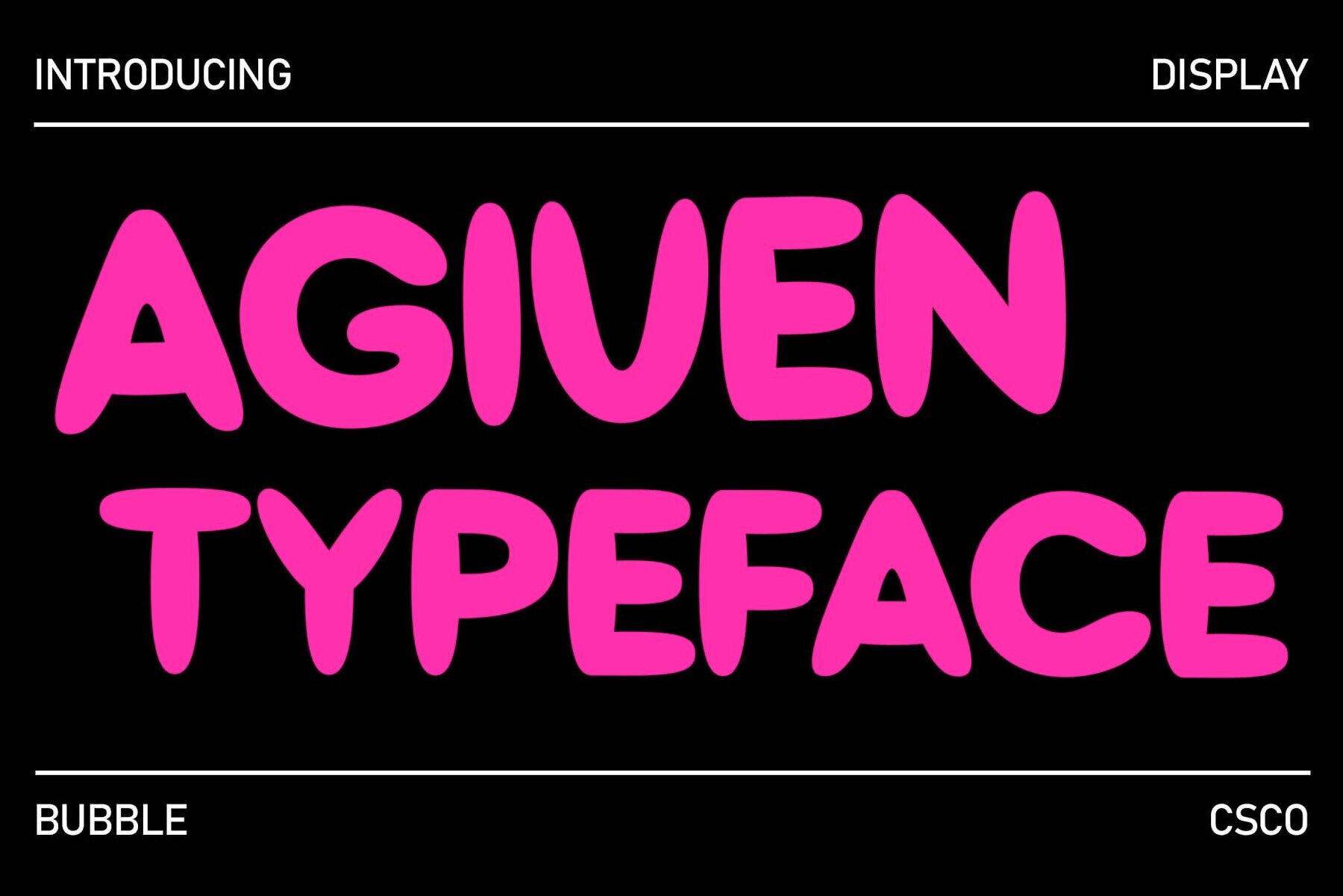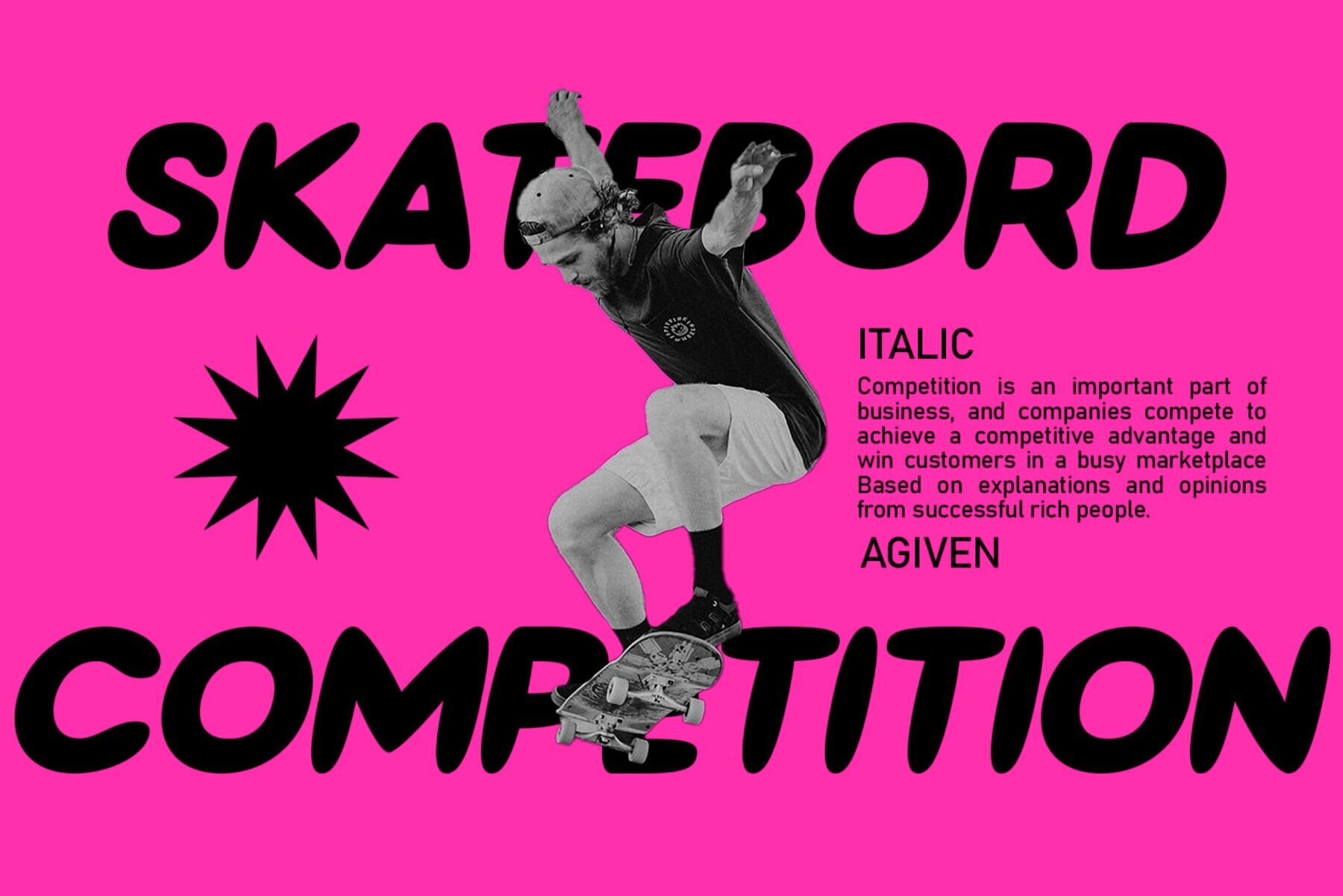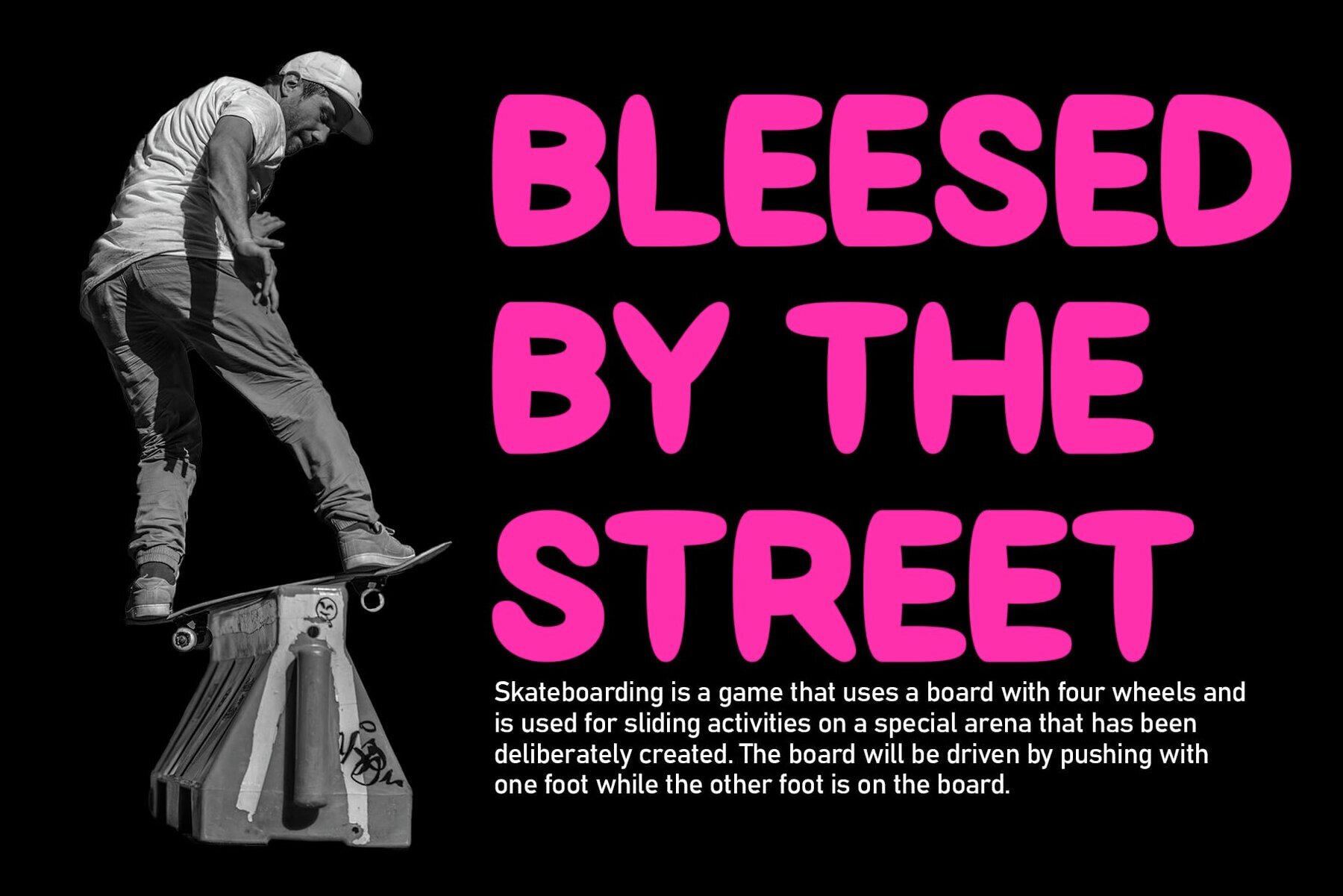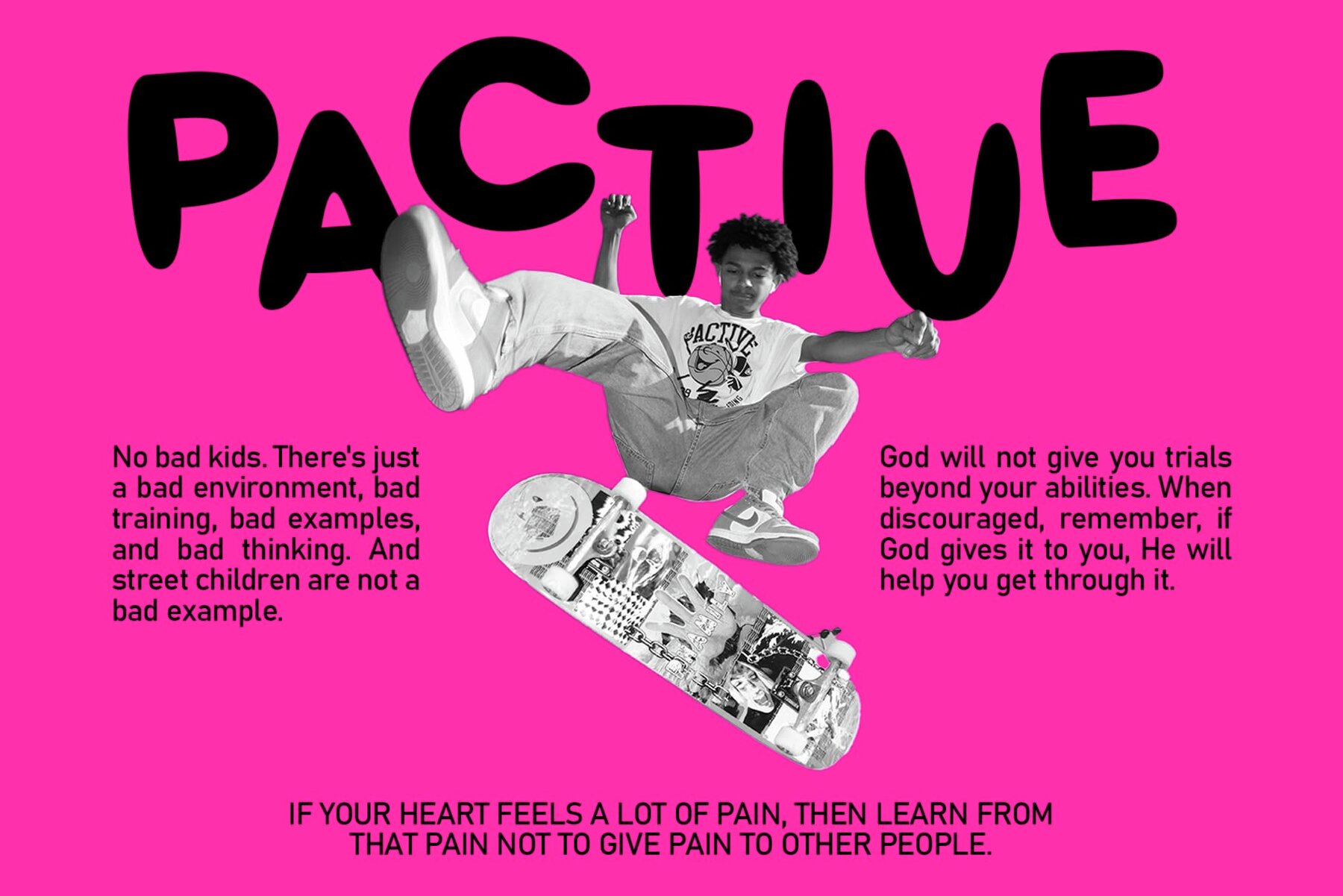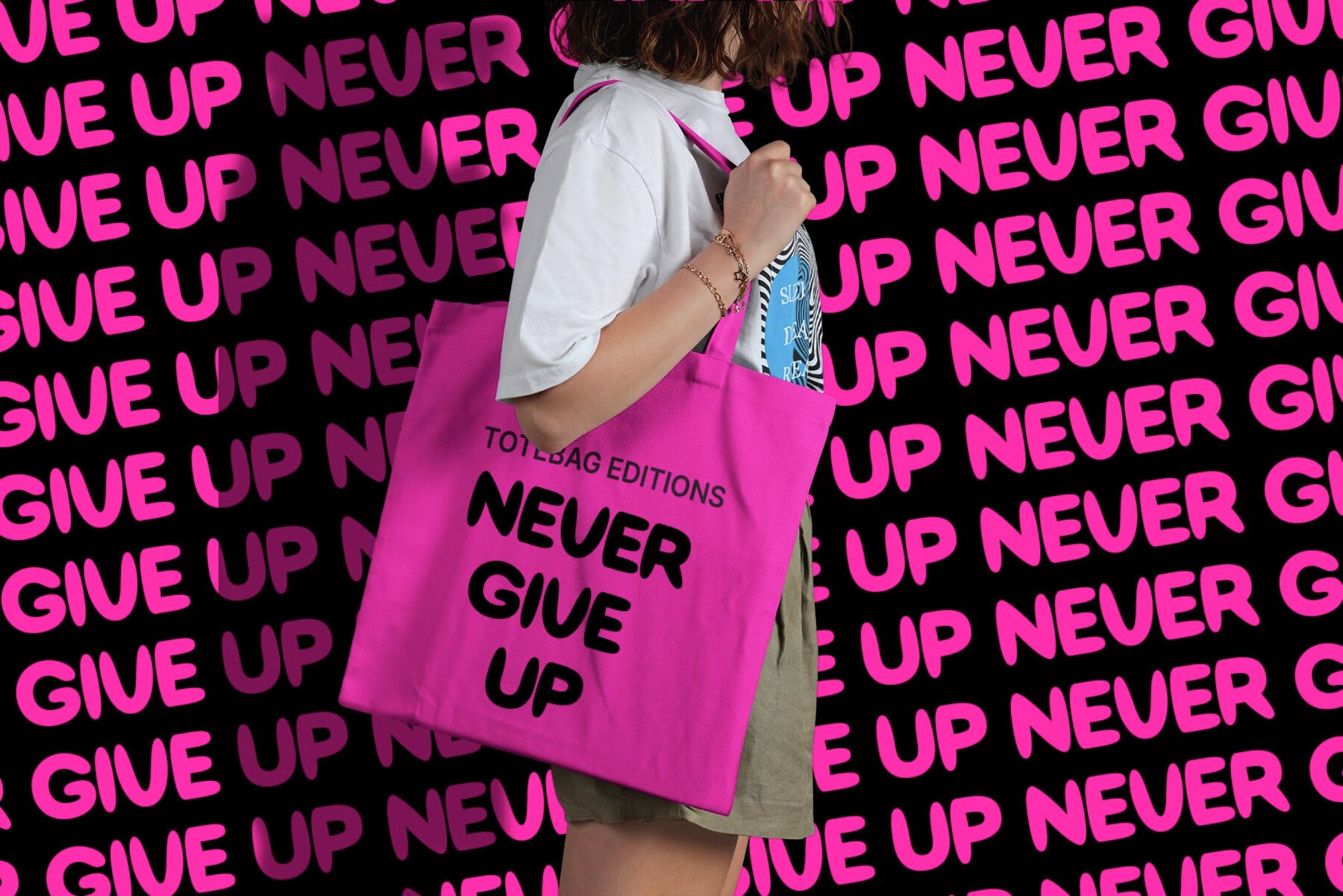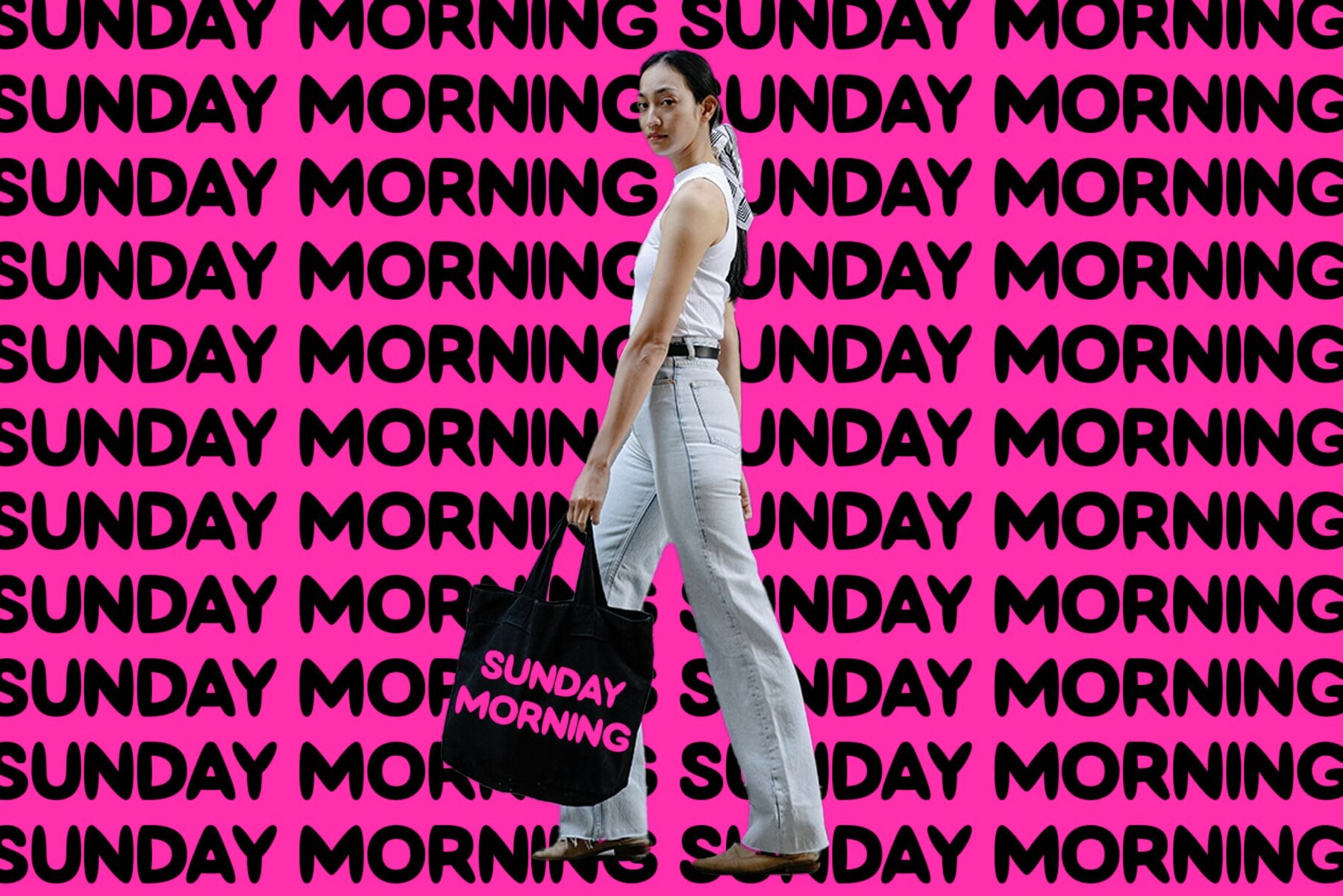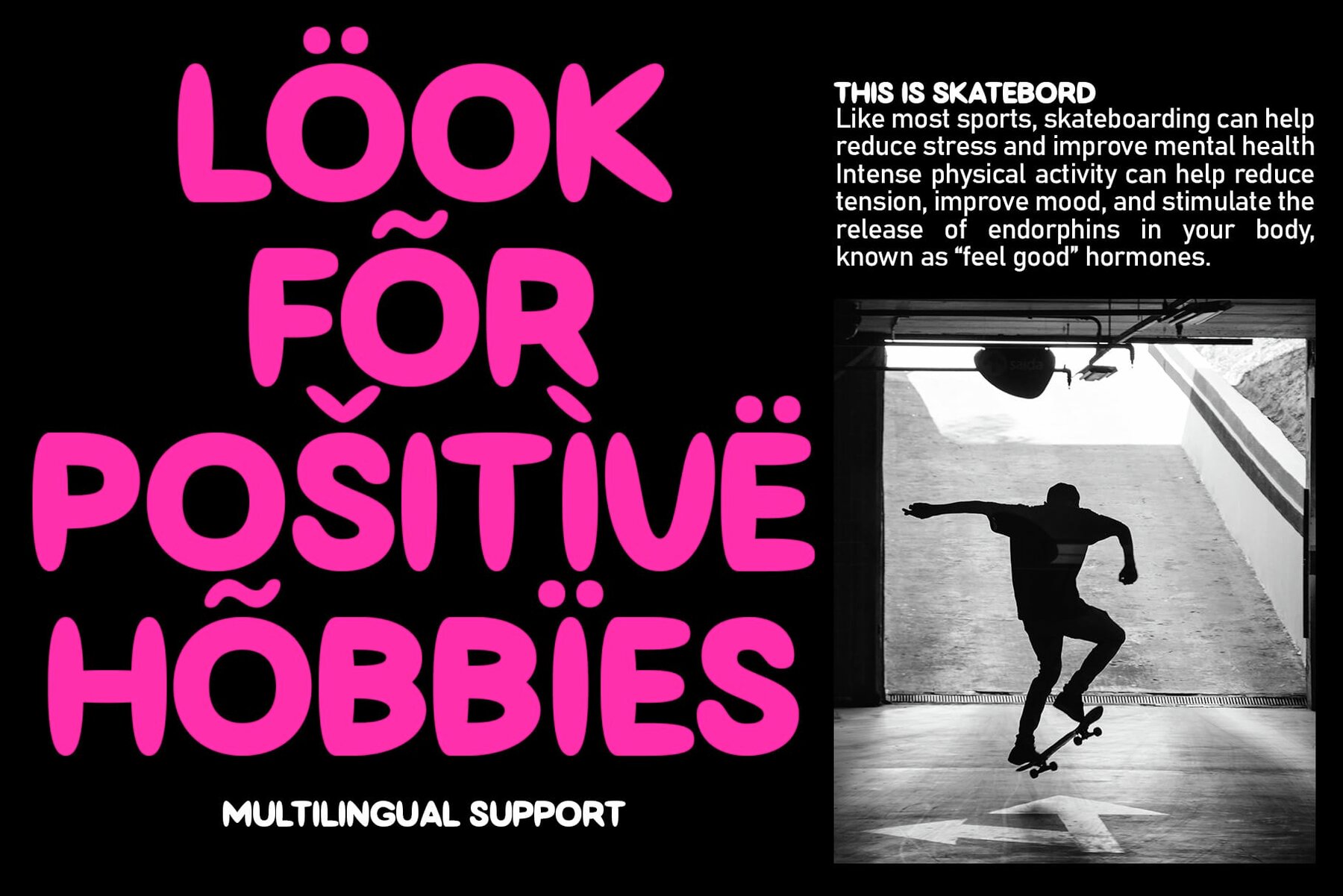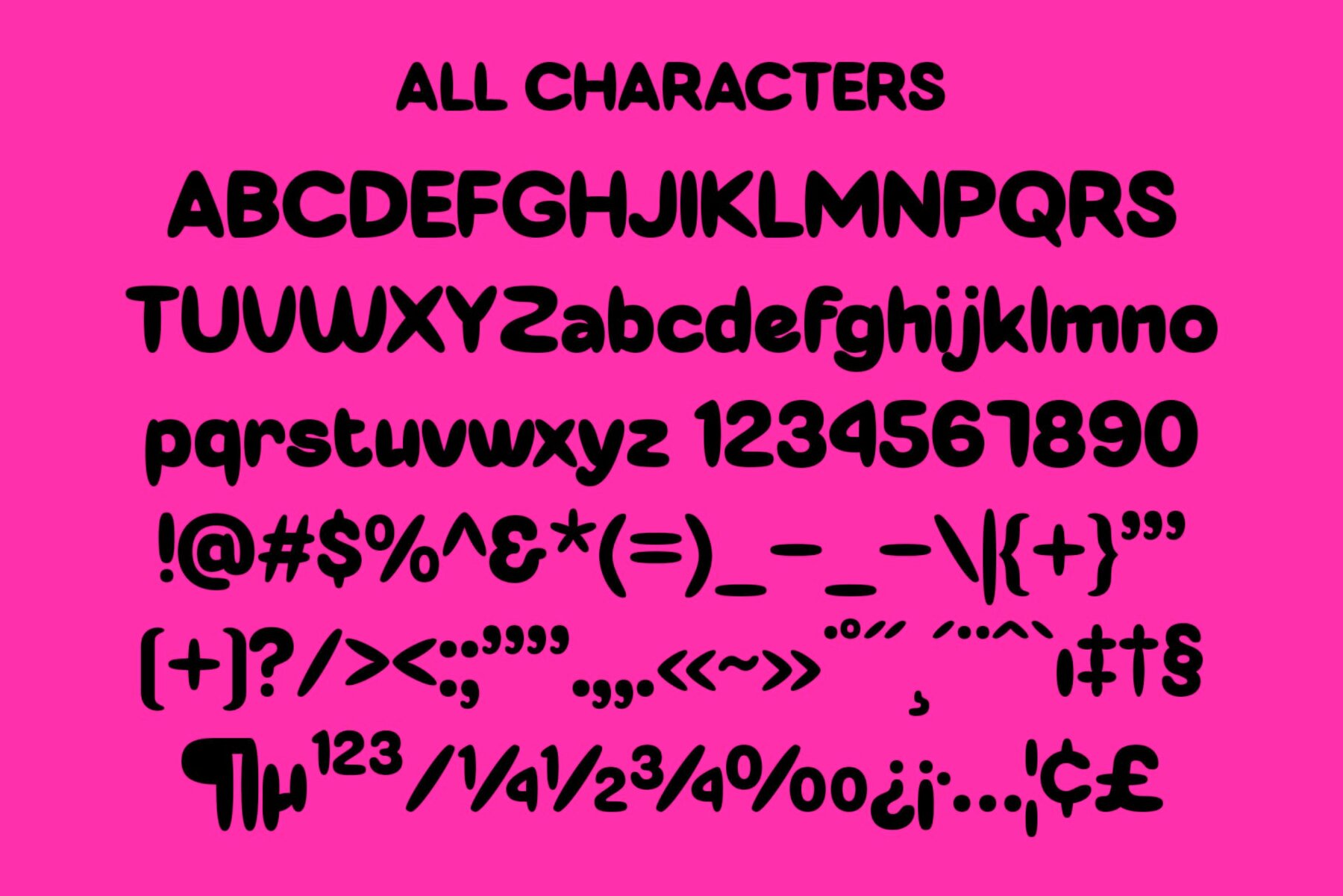
Agiven Font
Agiven is a typeface that embodies the essence of childhood wonder, with bubbly shapes that evoke the joy and innocence of carefree moments. Drawing inspiration from the joyful world of childhood, Agiven's bubble-like forms capture the playful innocence and lightheartedness we all cherish. With its rounded, bubble-like forms, Agiven brings whimsy and delight to any design project, adding a cheerful aesthetic to various visual elements. Designed for playful displays, Agiven excels in conveying fun and creativity. Ideal for children's books, toy packaging, or event invitations, its charm effortlessly captures attention. Beyond its playful demeanor, Agiven offers versatility. From logos to posters, its friendly bubbles add a distinctive personality to diverse design contexts. Agiven combines playfulness with design, offering a nostalgic yet contemporary flair. Its cheerful vibe and bubbly shapes bring joy and vibrancy to any project. Experience the whimsical charm of Agiven and infuse your designs with playful energy. Agiven can be used without any specialized software. If you have any inquiries or need assistance, please feel free to contact us. We appreciate your support in enhancing your creative projects!Agiven: The Playful Bubble Font
Inspired by Childhood
Bubble-Inspired Design
Perfect for Playful Displays
Versatile Application
Playfulness Meets Design